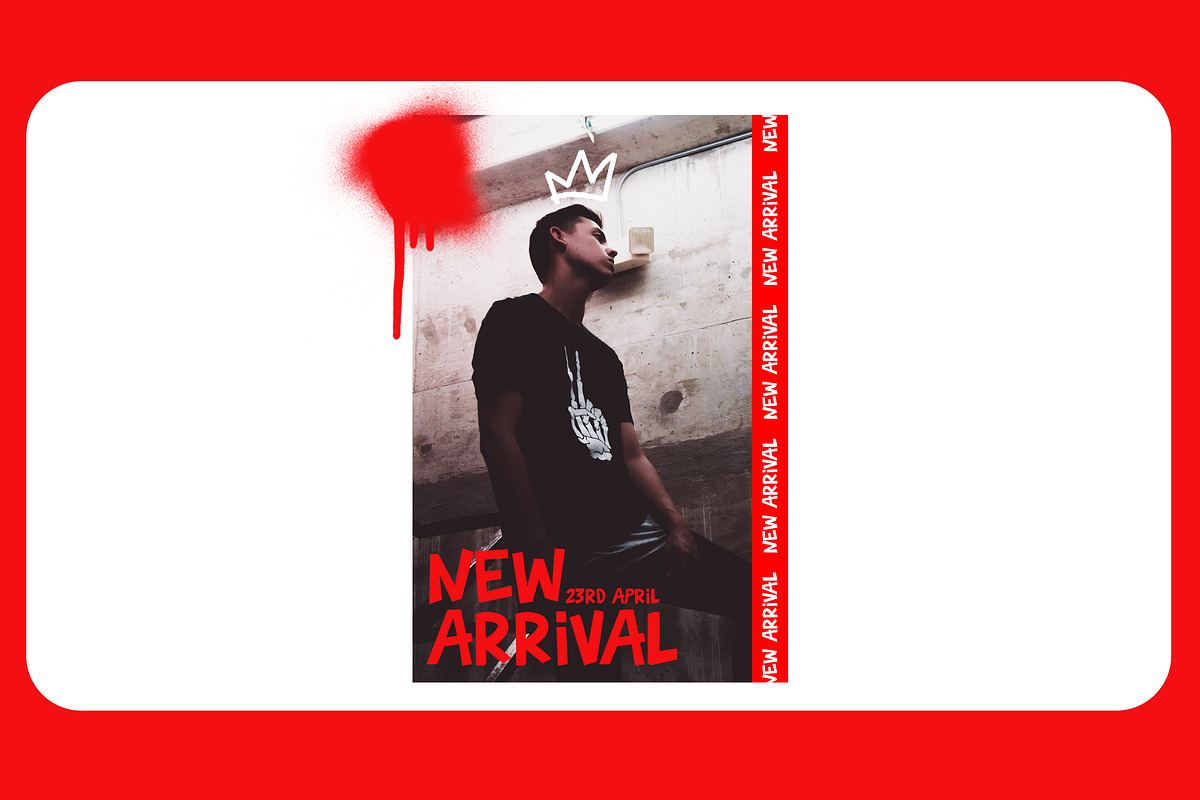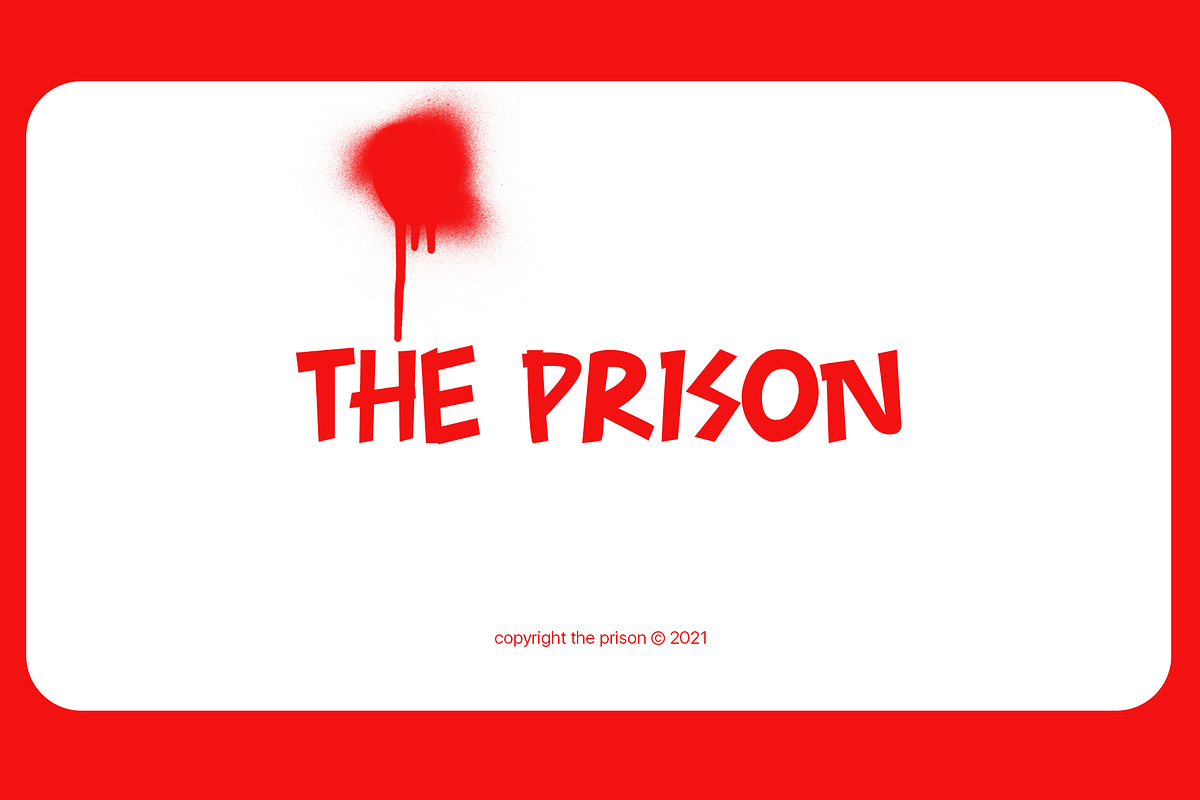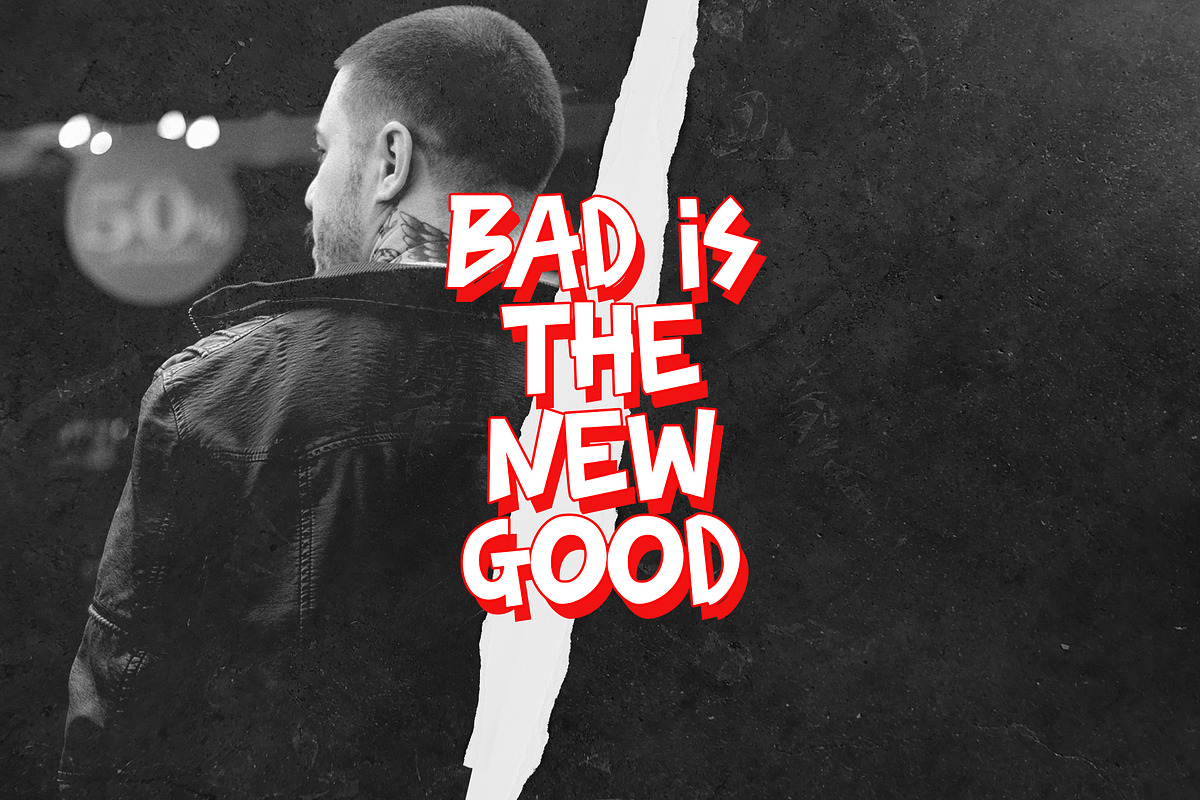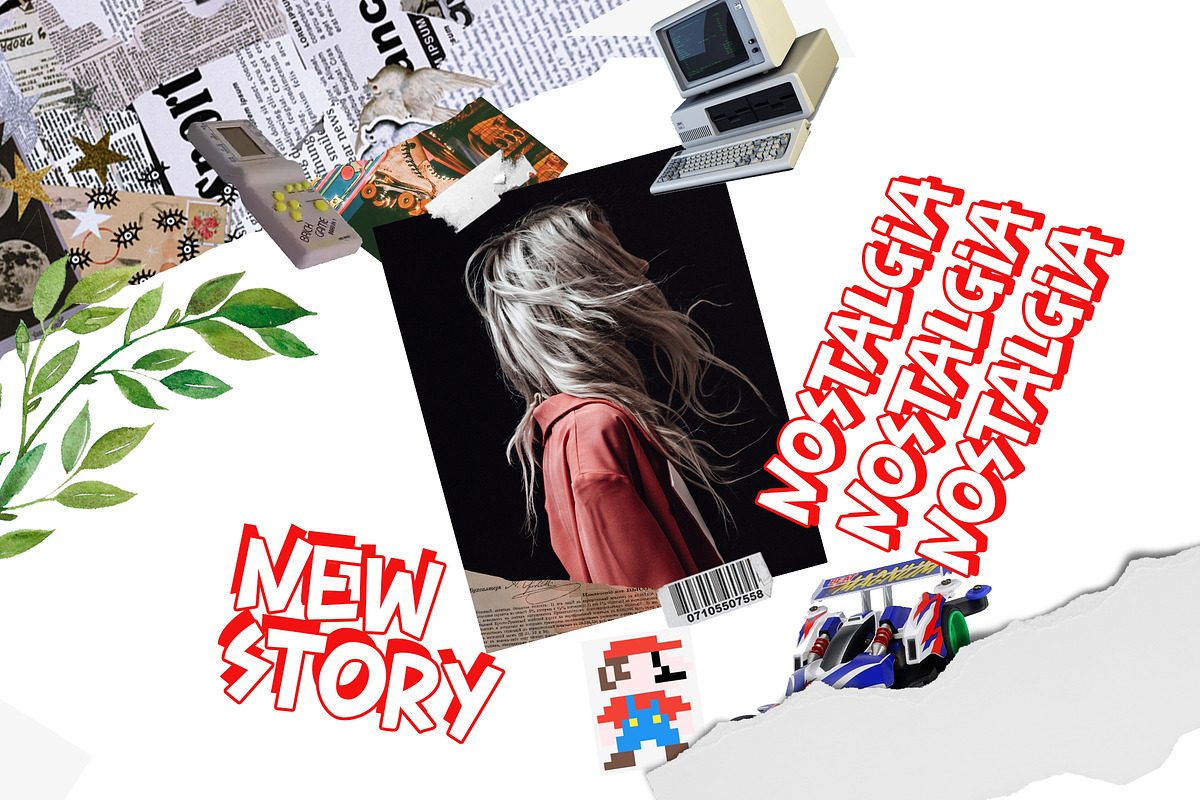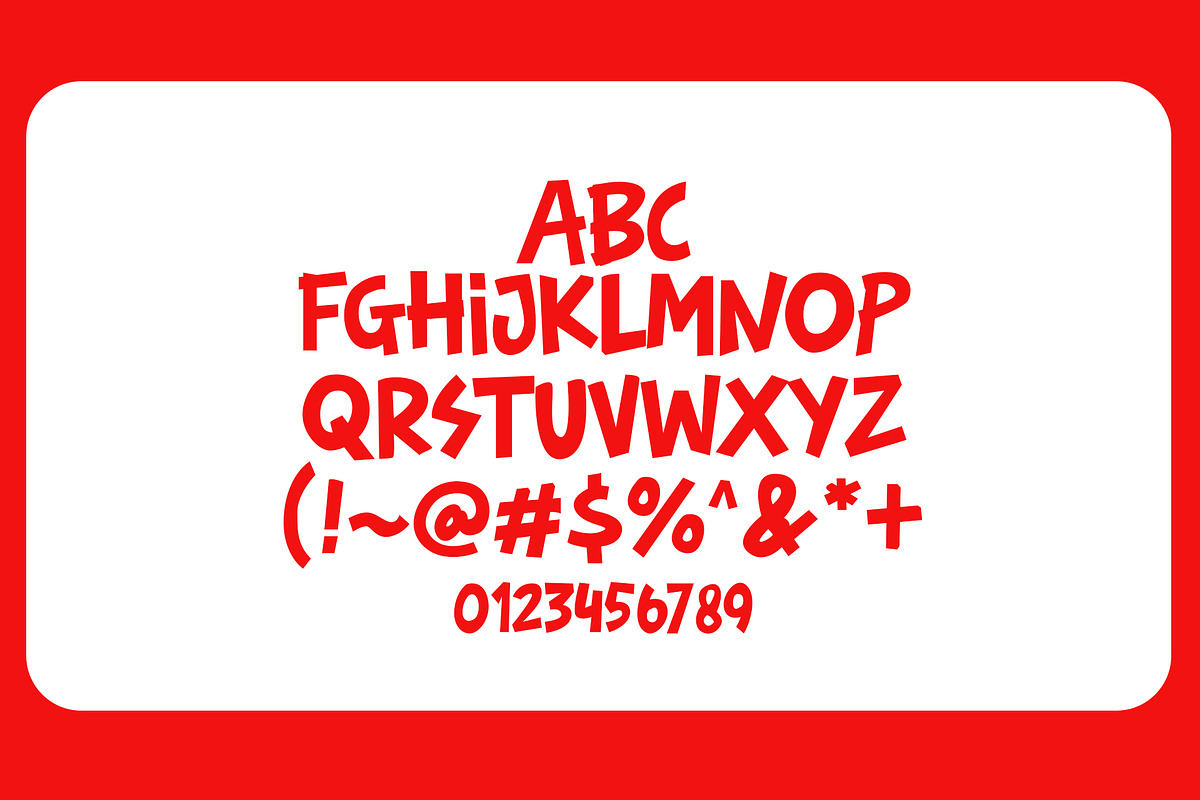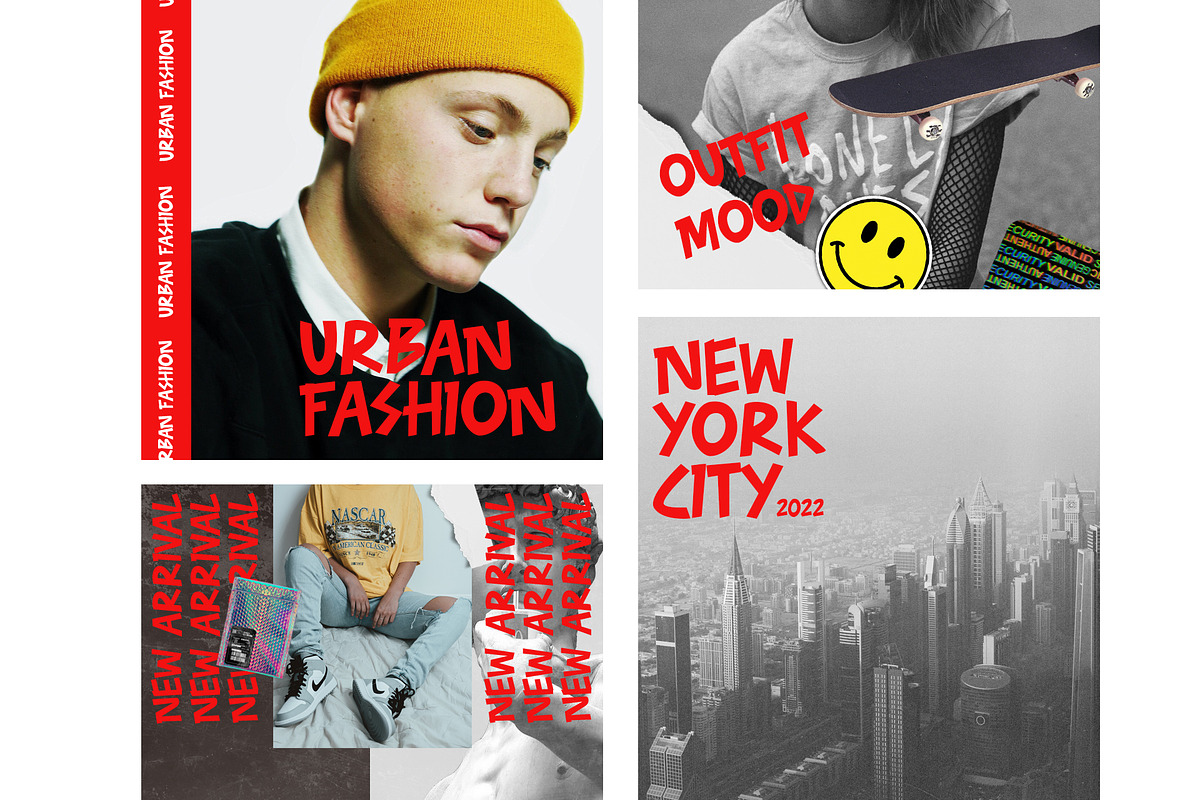
The Prison
Display Font is a old-school Font by ryan rivaldo vierra. By using this font, you can add some trippy vibe to your work that is best on vintage theme design. The font is suitable for logo, prints, event poster and so much more!